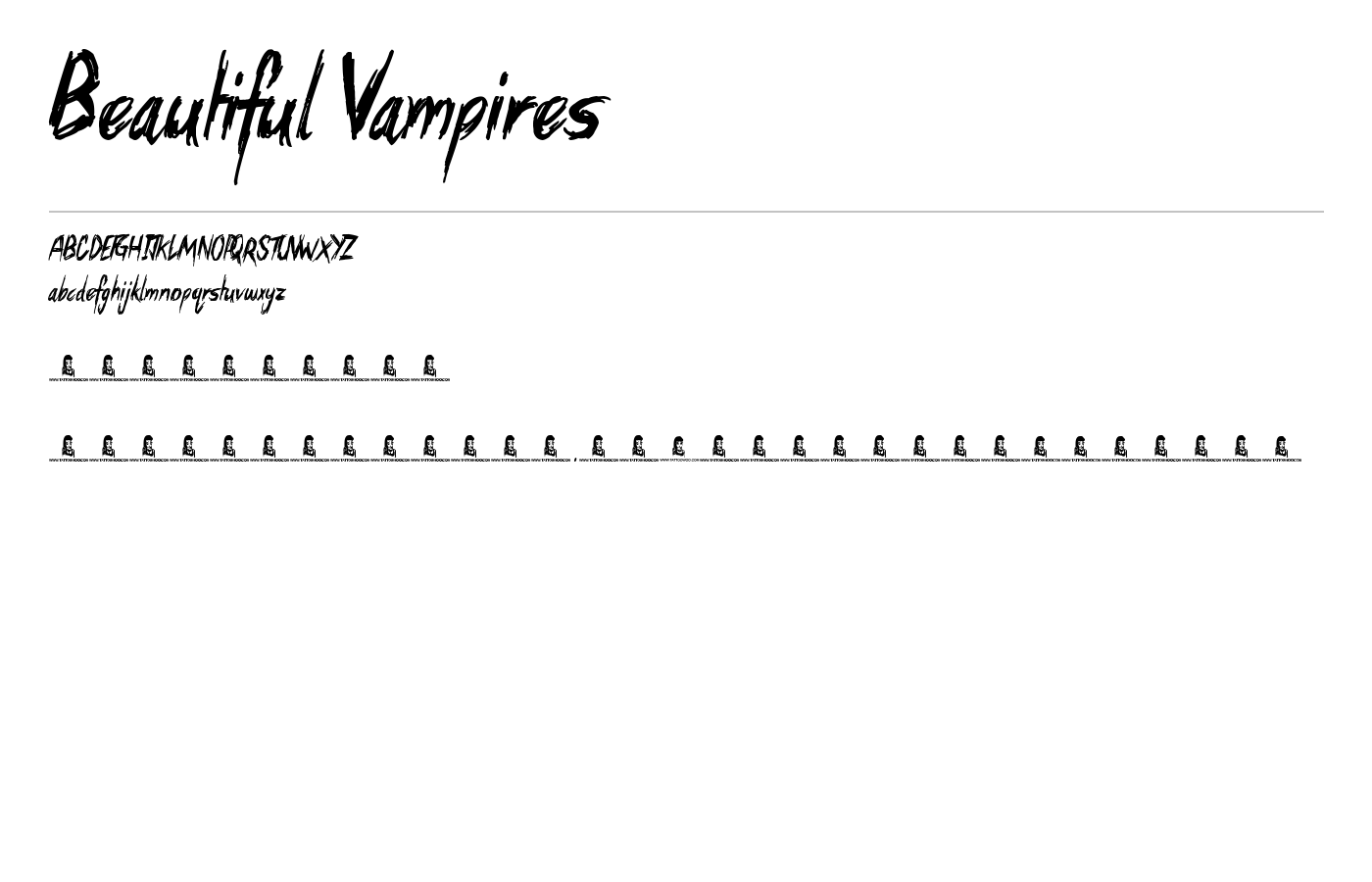
Beautiful Vampires is a striking handwritten script font with a bold, edgy character that evokes a dark, dramatic mood. Its jagged, energetic strokes and tall, narrow letterforms create a sense of urgency and mystery, making it perfect for Halloween themes, horror branding, or eye-catching titles. This font works best in headlines, posters, and creative projects where a strong, expressive personality is needed to capture attention.
Beautiful Vampires Font
About Beautiful Vampires Font
| Font family | Beautiful Vampires Font |
| Designer | Jonathan Stephen Harris |